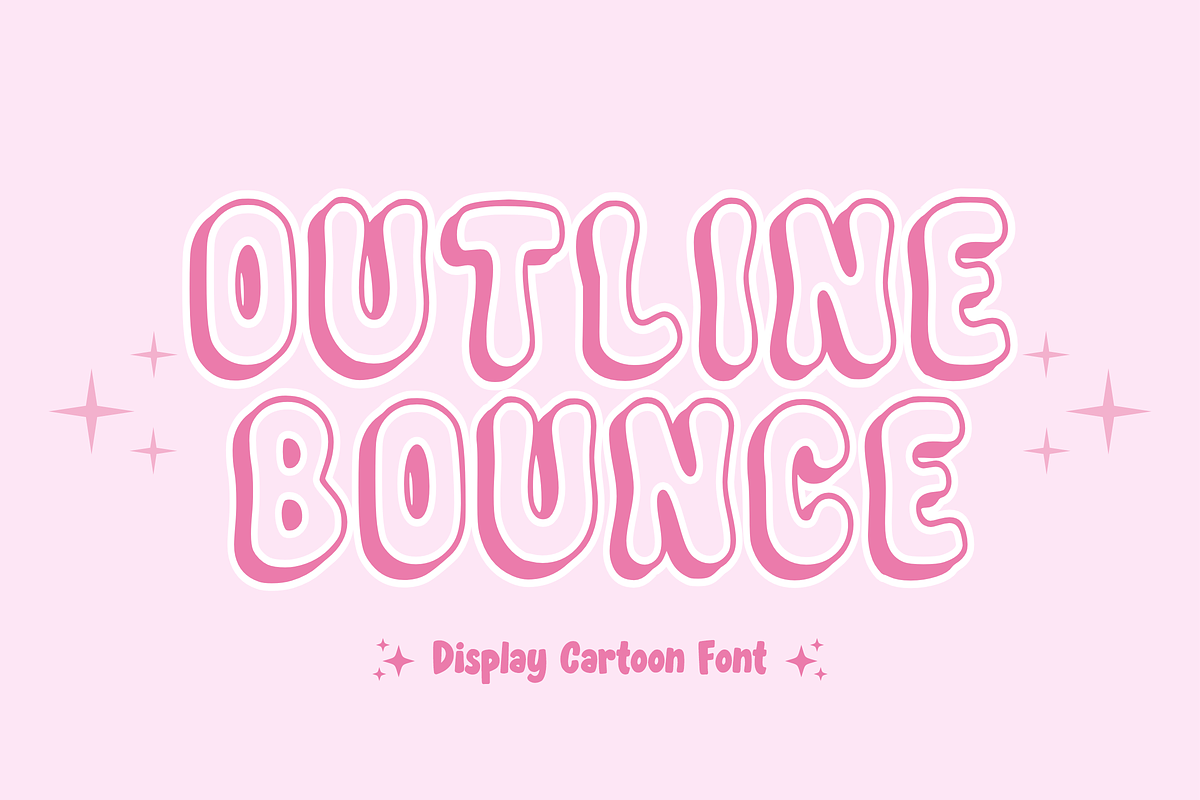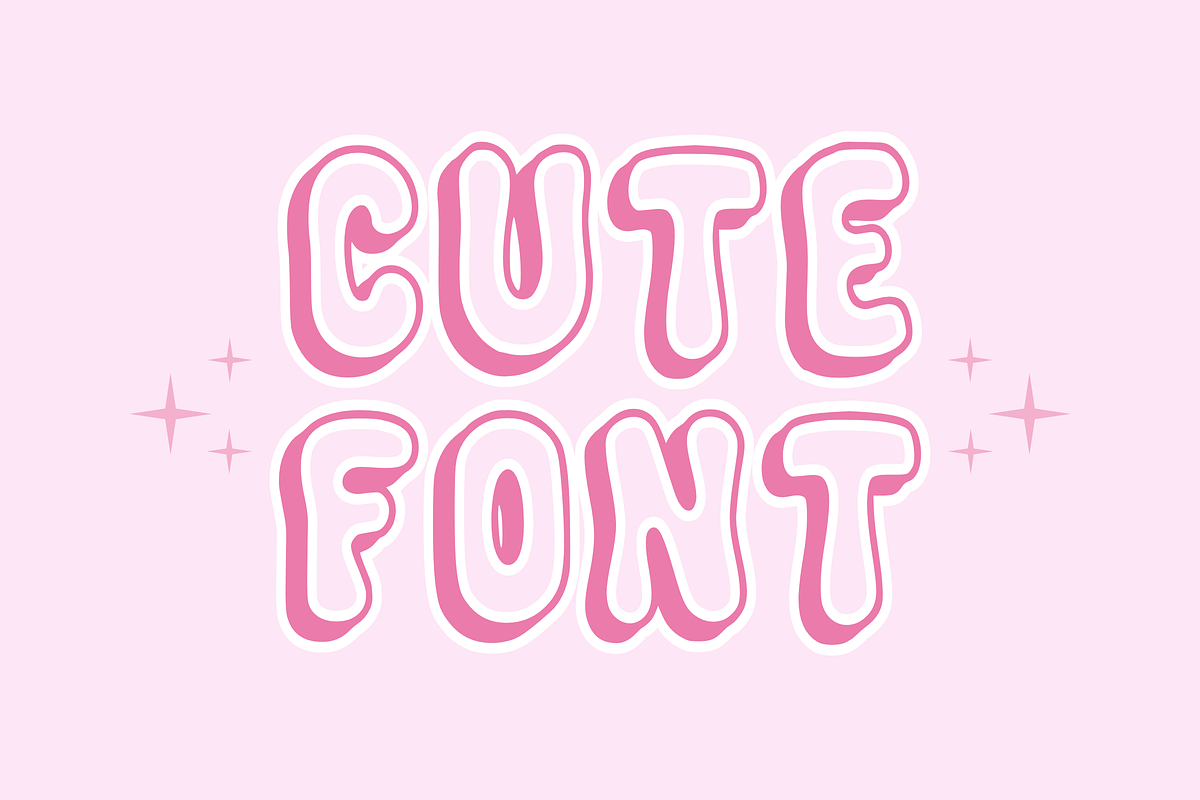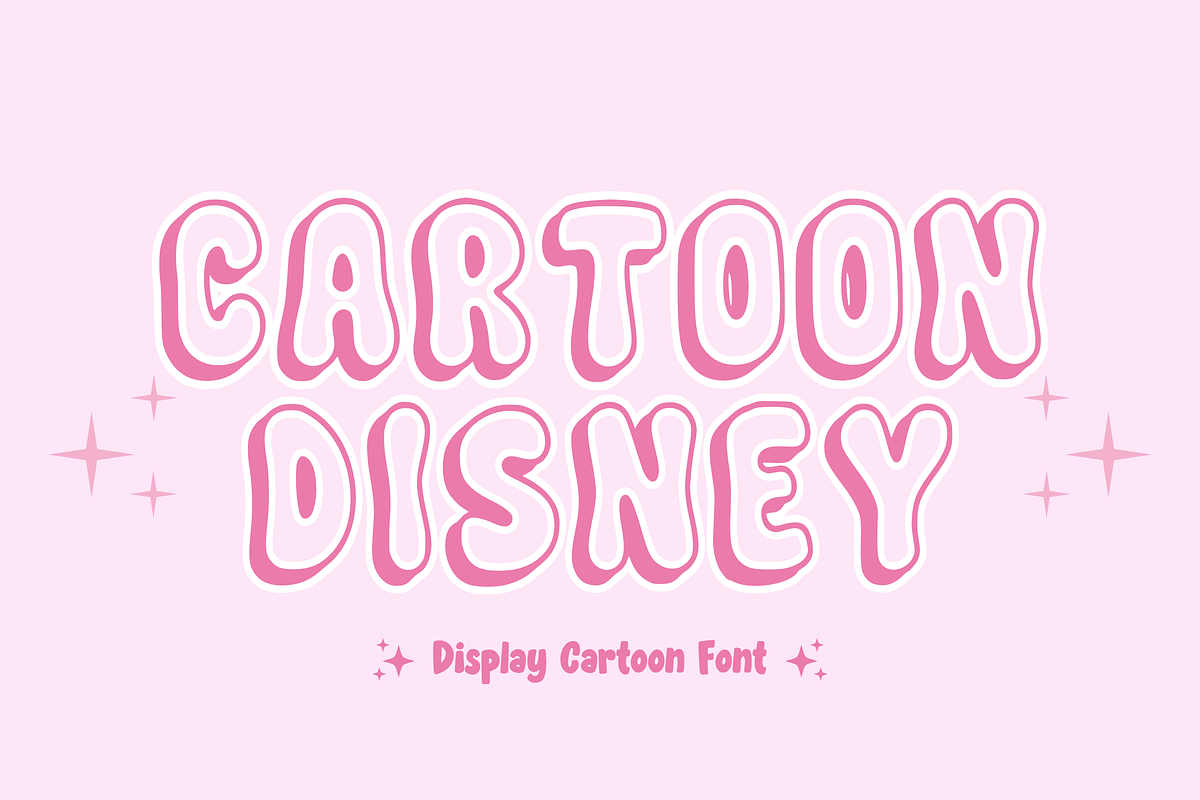
Outline Bounce - Bubble Font Type
Unveiling “Outline Bounce,” a contemporary Bubble Line font that packs the charm into every individual character, making it effortlessly identifiable. Ideal for enriching the allure of your t-shirt designs, enlivening your mugs, embellishing your tote bags, creating animated wonders, crafting comic titles, and much more. It invites your creativity and imagination to frolic amidst its vibrant curves and lines! Boost your designs with this unique font and continue to appreciate our creation that fuels our passion. Your support encourages us to birth more novelty typefaces. Gratitude!